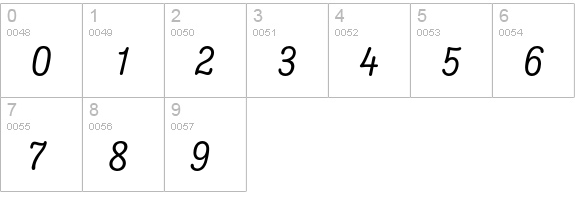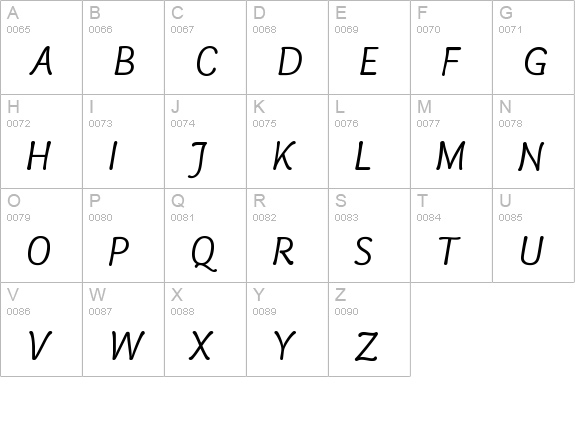
Poppl College One BQ Regular Font Details
Poppl College One BQ Regular is the standard, neutral variant in the Poppl typeface family \xE2\x80\x94 well suited to general body text, paragraphs, and standard typographic work.
Poppl College One BQ Regular font is a classic and elegant typeface that exudes professionalism and sophistication. With its clean lines and balanced proportions, this font is versatile and suitable for a wide range of design projects. Whether you are creating a logo, branding materials, or editorial content, Poppl College One BQ Regular font will elevate your design with its timeless appeal. The best part is that this font is available for free download at FontsMarket.com. You can easily access and use this high-quality font without any cost, making it a valuable resource for designers and creatives. Don't miss out on this opportunity to enhance your designs with the stylish and refined Poppl College One BQ Regular font.